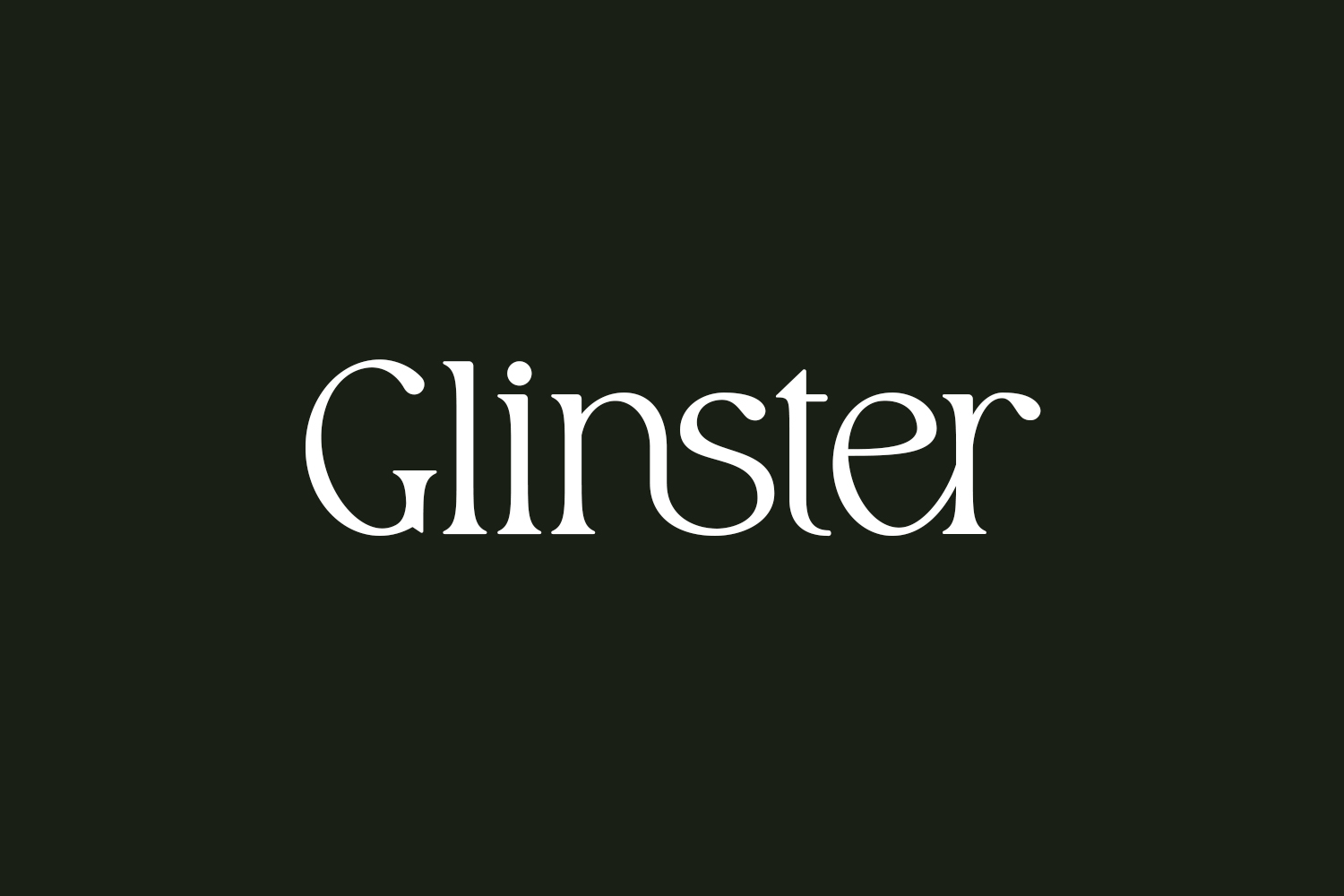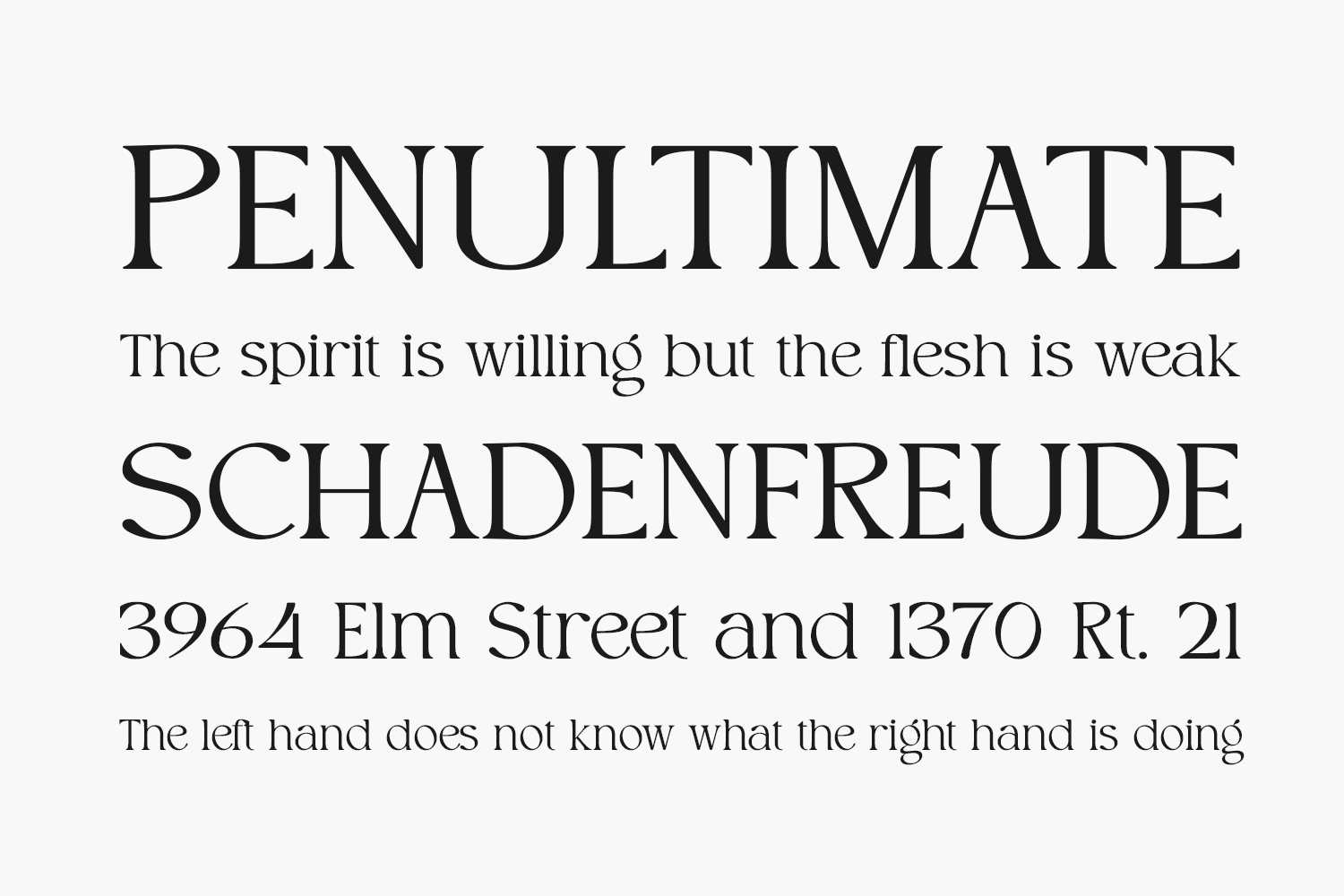
Glinster Free Font is a modern, elegant, and luxurious serif font perfect for social media posts, logos, merchandise, book covers, posters, video content thumbnails, quotes, landing pages, and wedding invitations, and many more. For those of you who need a touch of elegance, style, and modernity for your designs, this font was made for you. Glinster Free Font is free for personal use only. Please purchase the full version for commercial use.